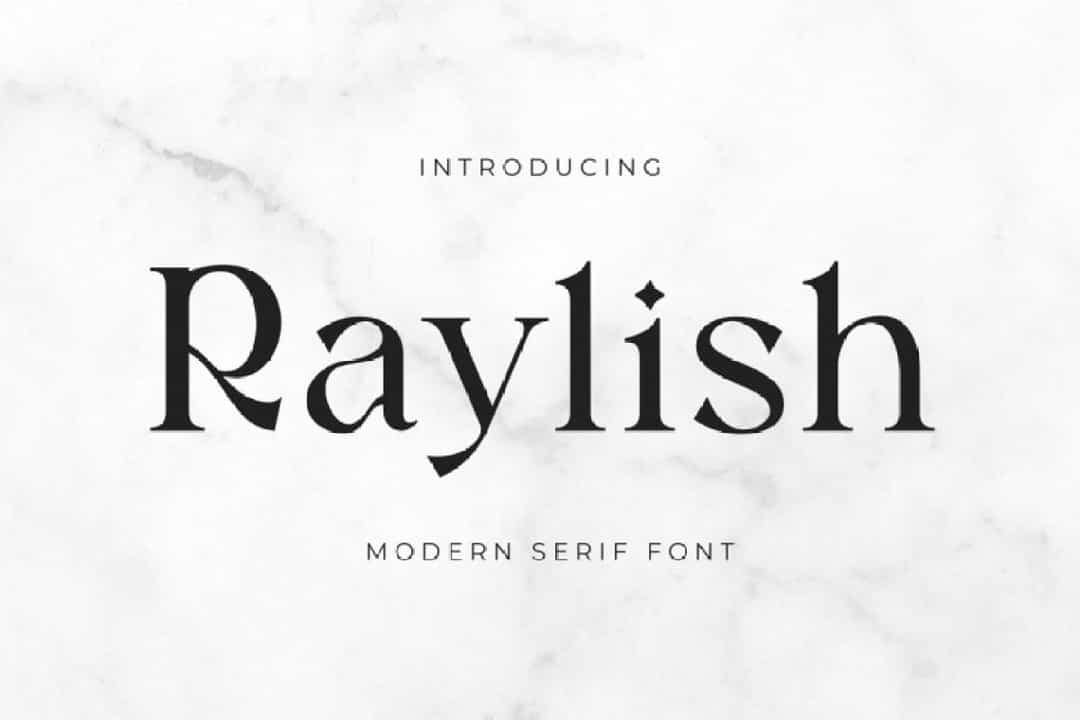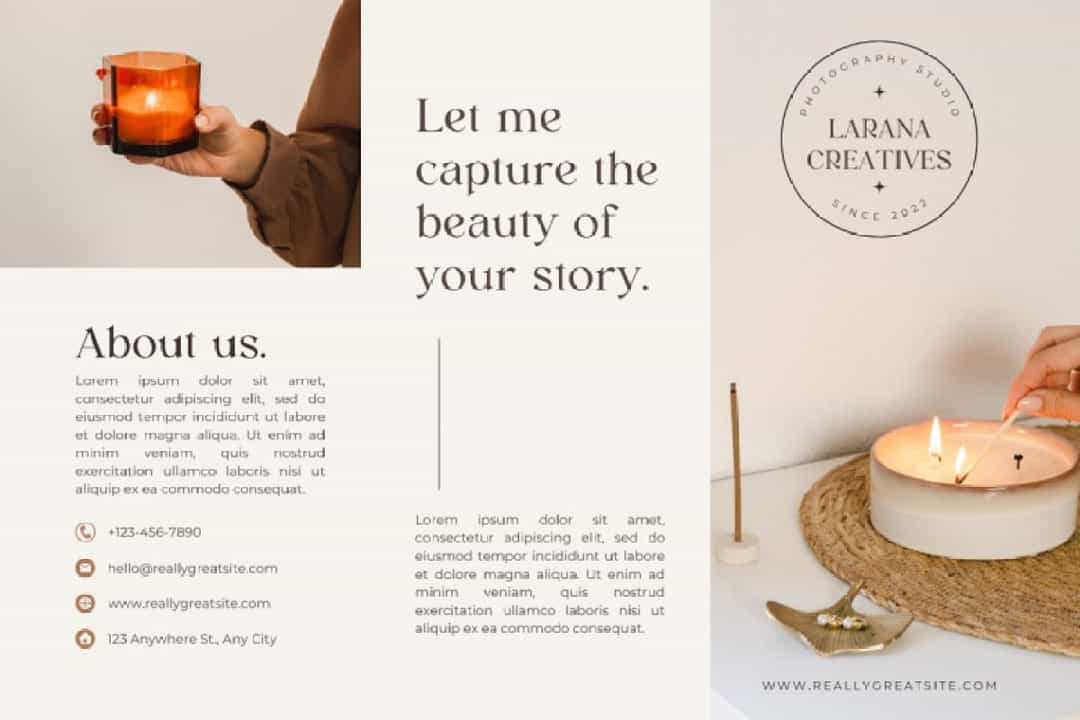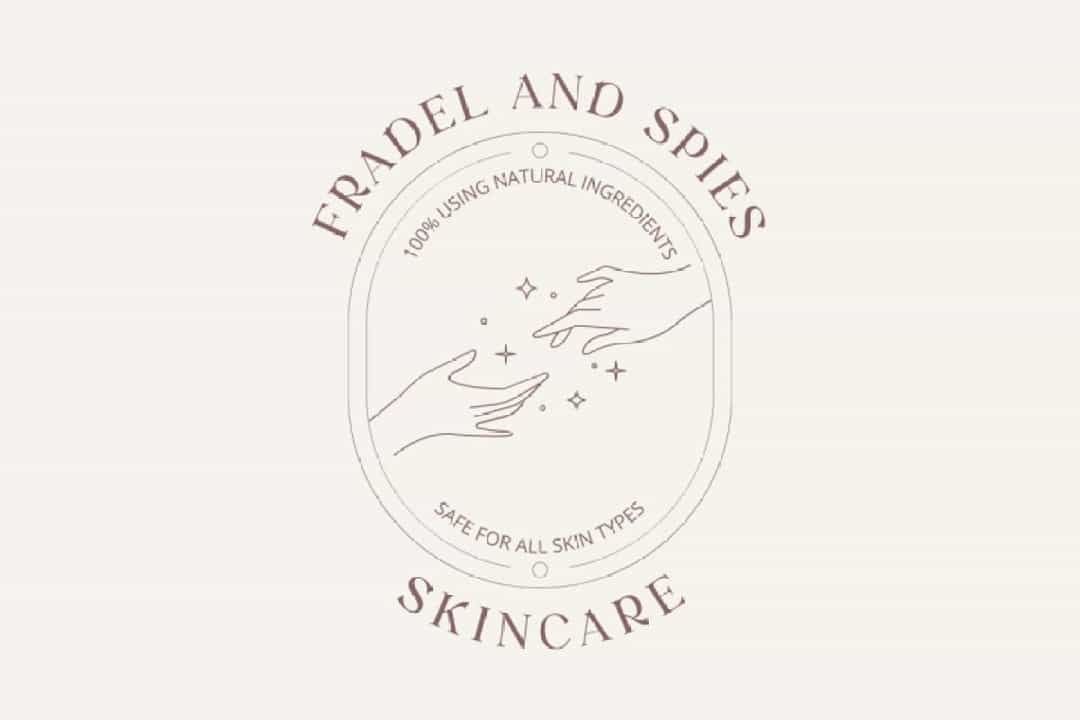
Raylish is an elegant serif font with a trendy aesthetic, perfect for sophisticated design projects with luxurious aesthetics. Due to this exquisite appearance, this font may also serve as an effective means of communication within corporate settings.